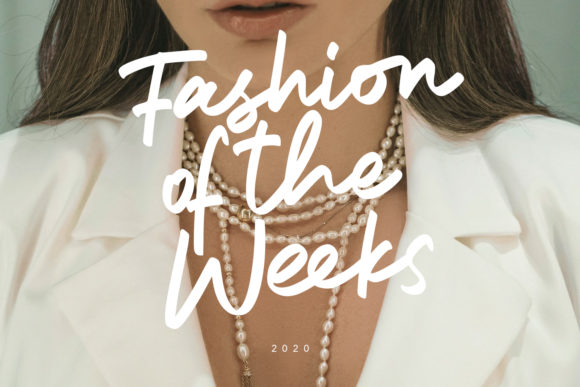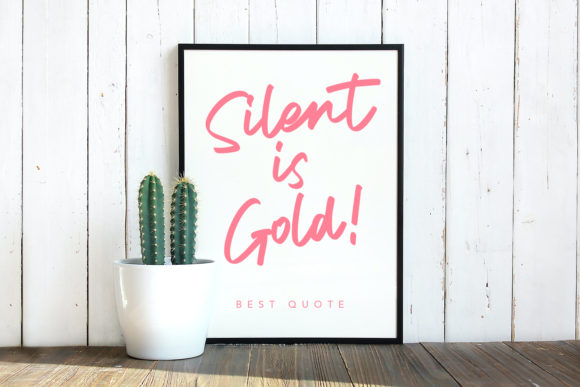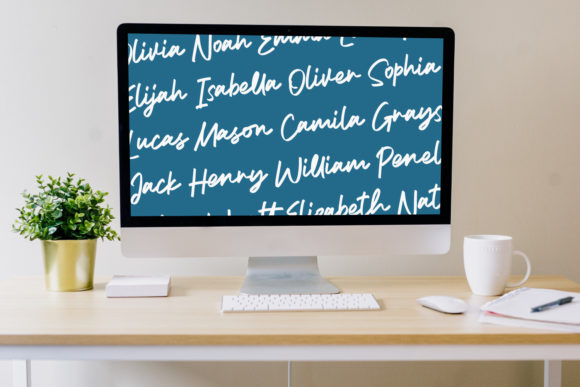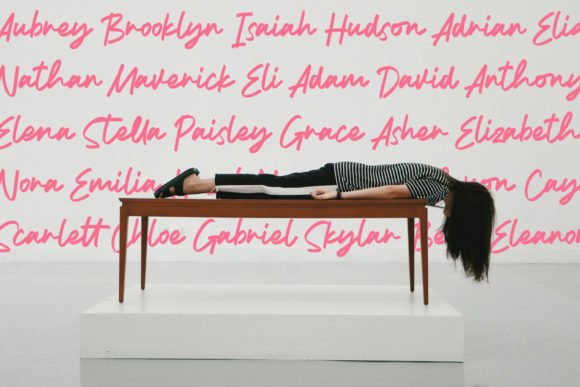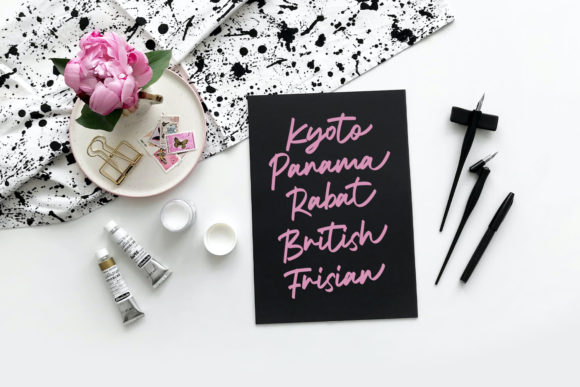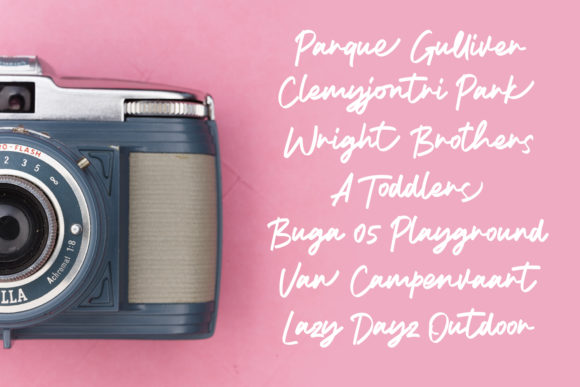
Introducing Balder Script Font: Elevate Your Designs with a Touch of Elegance
In the world of typography, few fonts manage to capture the essence of elegance and sophistication as beautifully as the Balder Script Font. This stunning font, crafted with an outstanding brush pen, has become a favorite among designers and crafters looking to add a handwritten touch to their creations. Whether you’re working on wedding invitations, thank you cards, quotes, greeting cards, logos, business cards, or any other design that requires a personal and intimate feel, Balder Script is the perfect choice.
The Unique Charm of Balder Script
Balder Script Font stands out from the crowd with its unique, flowing lines and delicate strokes, reminiscent of handwritten text. The font’s design is inspired by the fluidity and expressiveness of brush pen writing, giving it a natural and organic look that resonates with audiences. Its elegance and charm make it an excellent tool for designers aiming to create visually appealing and emotionally engaging content.
One of the key advantages of Balder Script Font is its versatility. It can seamlessly integrate into a wide range of design projects, including:
- Wedding Invitations: Add a touch of romance and sophistication to your wedding invitations, making the moment even more special for the couple and their guests.
- Thank You Cards: Express gratitude with style, using Balder Script to write heartfelt messages that leave a lasting impression.
- Quotes and Greeting Cards: Bring inspirational quotes and greeting cards to life with a font that speaks directly to the heart.
- Logos and Business Cards: Elevate your brand’s image with a logo and business card design that exudes professionalism and elegance.
Why Designers and Crafters Love Balder Script
Designers and crafters around the world have fallen in love with Balder Script Font for several reasons:
- Ease of Use: Despite its sophisticated look, Balder Script is incredibly easy to use, making it accessible to designers of all skill levels.
- High Readability: The font’s clarity ensures that your message is conveyed effectively, without compromising on style.
- Customization: Balder Script offers a range of customization options, allowing designers to tailor the font to fit their project’s specific needs.
- Emotional Connection: The font’s handwritten nature creates an emotional connection with the audience, making designs more impactful and memorable.
Tips for Getting the Most Out of Balder Script
To maximize the potential of Balder Script Font in your designs, consider the following tips:
- Pair with Complementary Fonts: Combine Balder Script with simpler fonts to create visual interest and hierarchy in your designs.
- Adjust Size and Color: Experiment with different sizes and colors to emphasize certain words or phrases and add depth to your designs.
- Use in Combination with Images: Pair the font with relevant images or illustrations to enhance the storytelling aspect of your design.
Balder Script Font is more than just a typeface; it’s a tool that can transform your designs, adding a layer of elegance, sophistication, and personal touch. Its versatility, ease of use, and emotional resonance make it an invaluable asset for designers and crafters looking to create memorable and impactful works. Whether you’re designing for a client or working on a personal project, Balder Script is sure to elevate your creations to new heights.